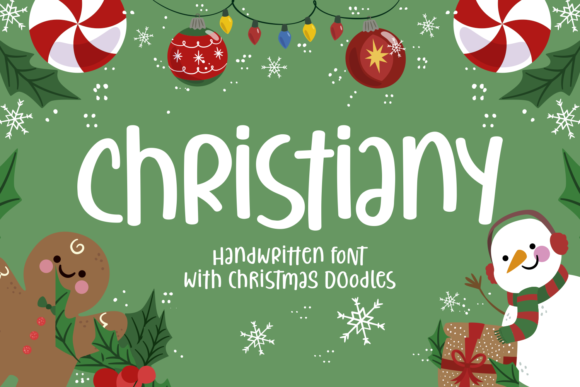
Introducing the Christiany Font, the Best Font for Wedding Invites! Created by the talented Keithzo from 7NTypes, this playful handwritten font is a must-have for all your design needs. Whether you're a professional graphic designer or simply planning a wedding, Christiany will elevate your projects to new heights of elegance and charm.
With its impeccable readability, even in small sizes, Christiany ensures that your wedding invitations will captivate and mesmerize your guests. Say goodbye to those generic and dull fonts that fail to leave a lasting impression. Christiany brings a youthful and fun style to your designs, infusing them with a touch of personality and whimsy.
But why limit yourself to just wedding invites? Christiany is a versatile font that goes beyond the boundaries of traditional design. Its versatility makes it ideal for a wide range of projects, including Christmas designs! Imagine creating stunning holiday cards, festive banners, or even personalized gift tags. And to make your Christmas creations even more delightful, Christiany comes with a collection of fun Christmas and winter doodles!
Not only does Christiany make your designs visually appealing, but it also evokes emotions and creates a connection with your audience. Its elegant strokes and graceful curves elicit feelings of joy, love, and excitement, making it the perfect choice for any occasion worth celebrating.
With Christiany, you can be confident that your designs will stand out from the crowd. Its unique and eye-catching style is sure to leave a lasting impression on anyone who sees it. So why settle for ordinary when you can have extraordinary? Download Christiany now and unlock a world of endless possibilities for your creative endeavors.